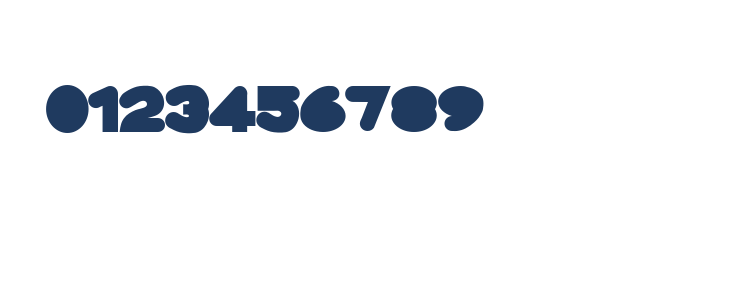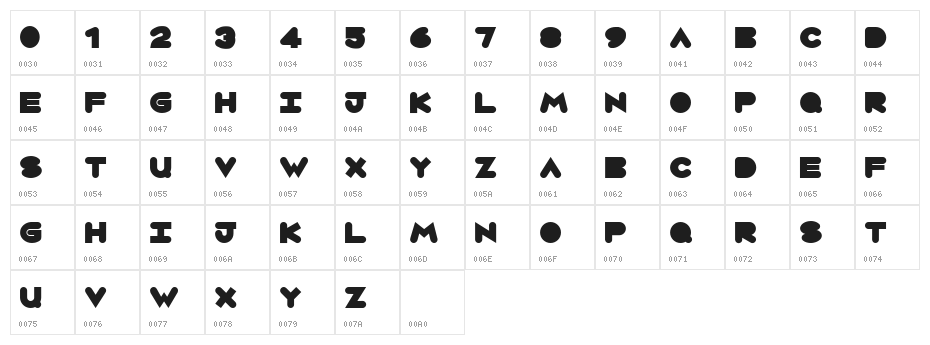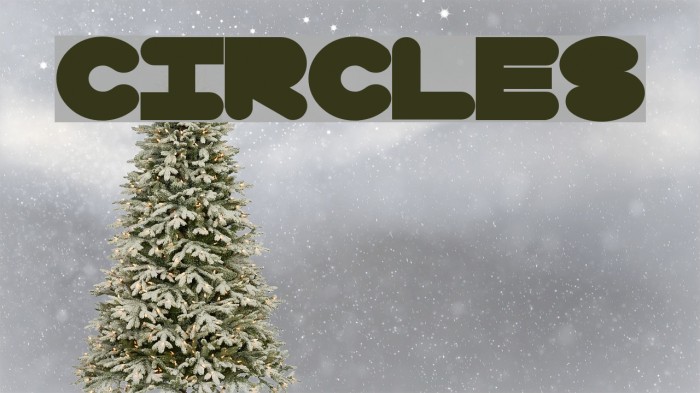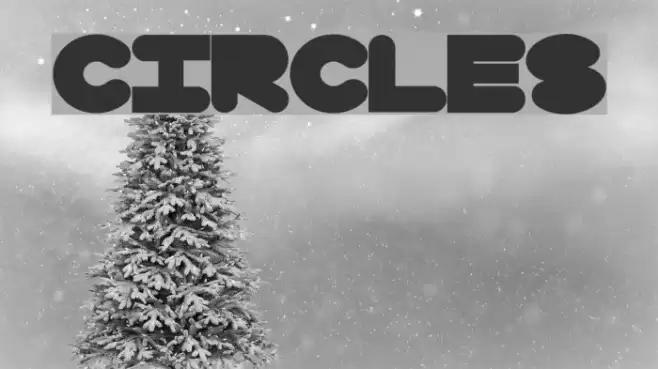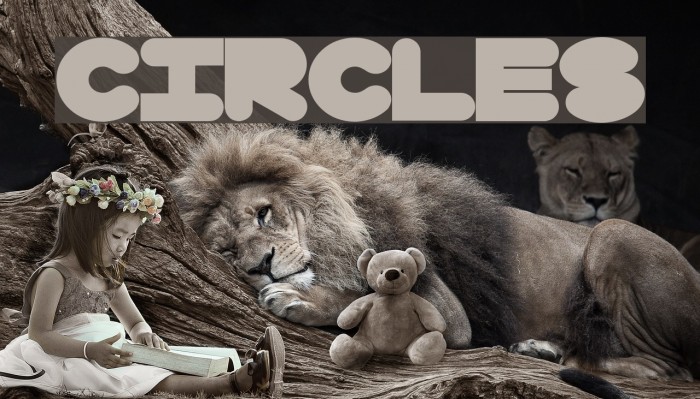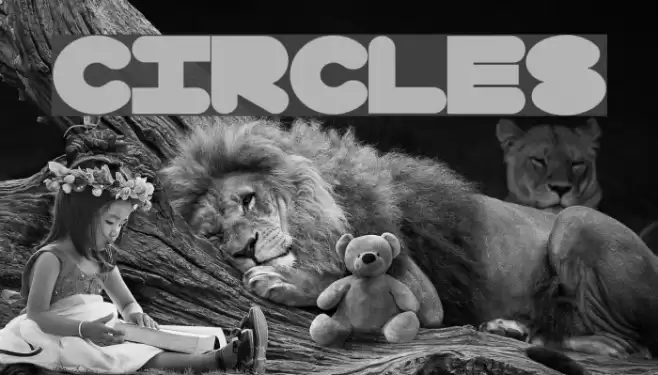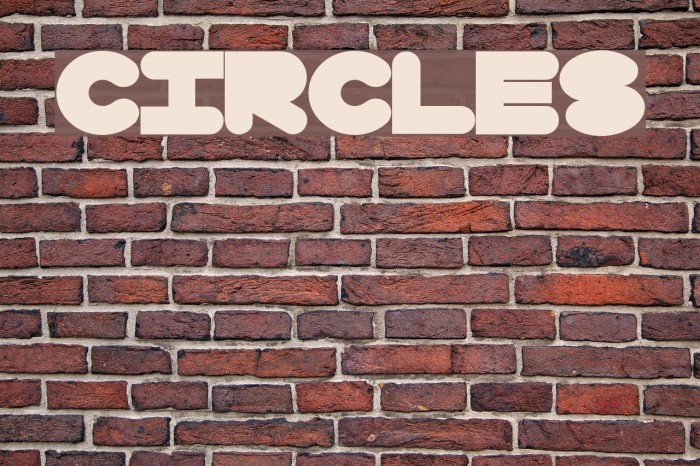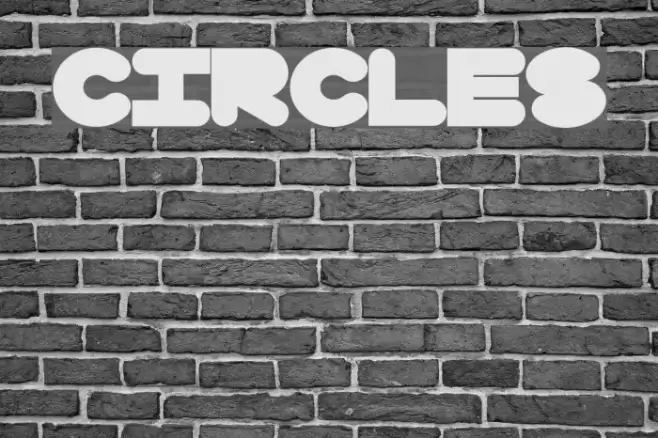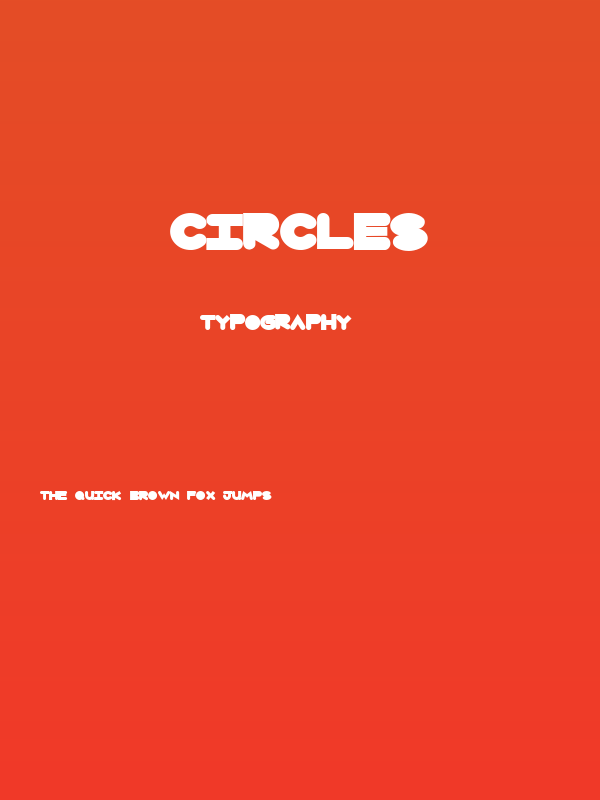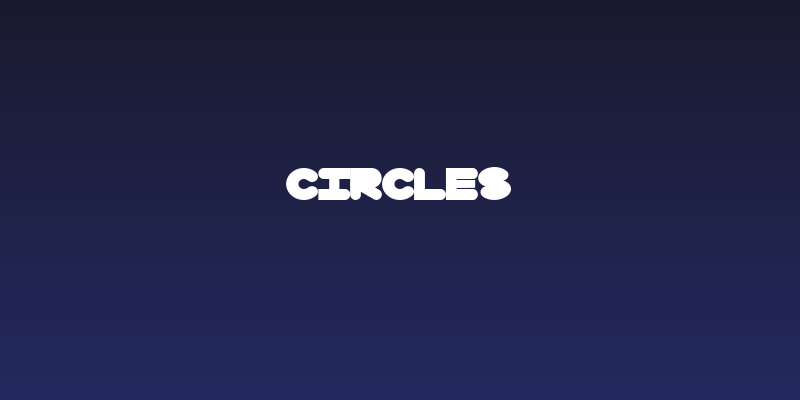
Circles Font
Circles Description
This font features bold, rounded characters with a playful and modern aesthetic. The letters are constructed with thick strokes and circular elements, giving them a bubbly and friendly appearance. The uniformity in stroke width across all characters creates a cohesive look, while the rounded edges soften the overall feel, making it approachable and fun. The numbers and special characters follow the same design principles, ensuring consistency throughout. This font is ideal for projects that require a touch of whimsy and creativity, such as children's books, playful branding, or eye-catching headlines.
| Proposed Projects | Ideal for children's books, playful branding, or eye-catching headlines. |